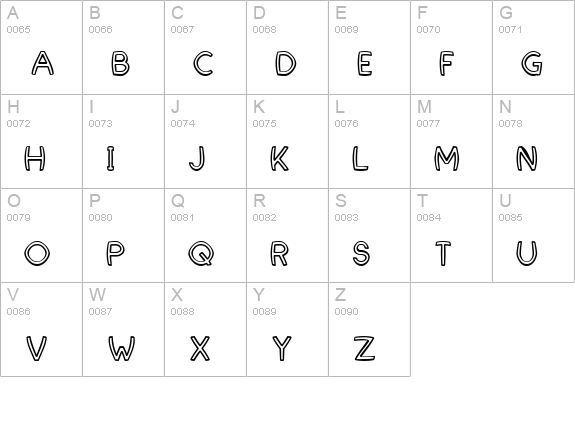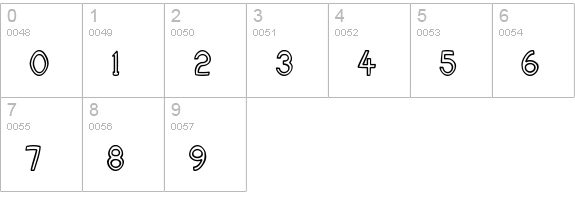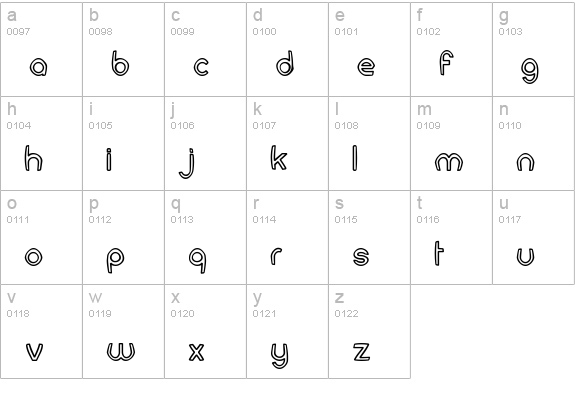
FortuneCity Comic Outline Font Details
FortuneCity Comic Outline font is a playful and engaging typeface designed to bring a fun and whimsical touch to your projects. With its bold and clean outlines, this font is perfect for comic books, children's books, posters, and more. The cheerful and quirky design of FortuneCity Comic Outline will surely make your text stand out and capture attention. Best of all, FortuneCity Comic Outline font is available for free download at FontsMarket.com. Simply visit the website to access this delightful font and add a touch of creativity to your designs. Don't miss out on the opportunity to enhance your projects with this charming and dynamic typeface. Download FortuneCity Comic Outline today and let your imagination run wild!